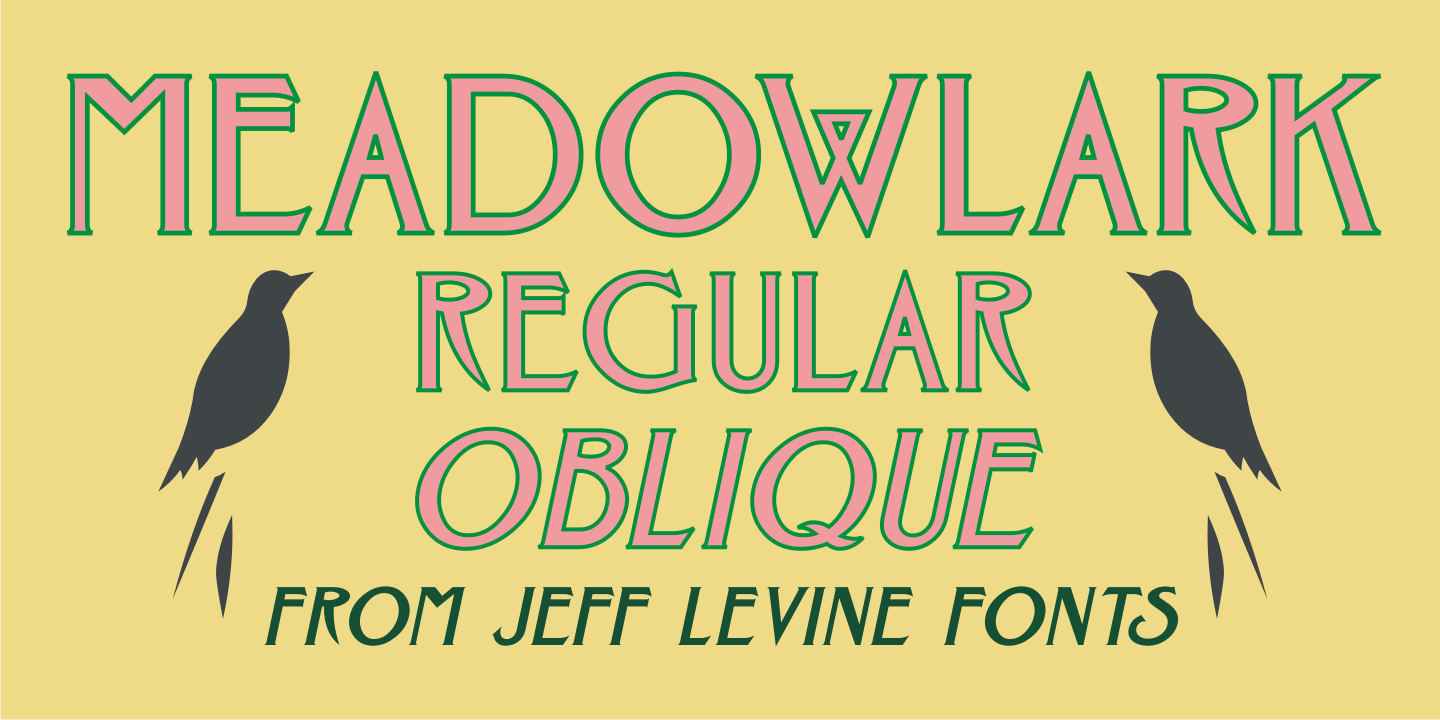
Meadowlark
The cover of the 1908 sheet music for 'When the Meadow-Larks Are Calling, Annie Laurieā€ has the title hand lettered in a semi-formal Art Nouveau Roman type design with gentle spurs.
This is now available as Meadowlark JNL in both regular and oblique versions.
Meadowlark by Jeff Levine Fonts